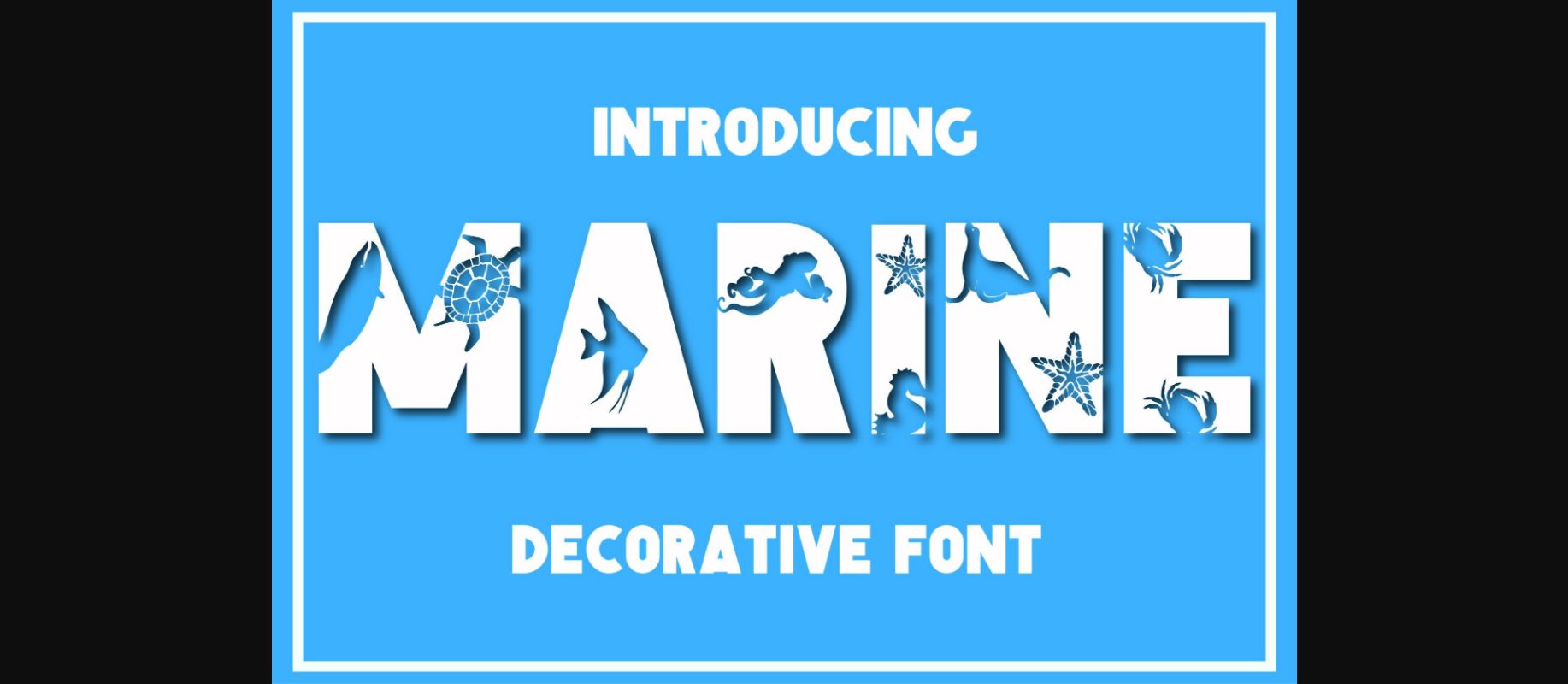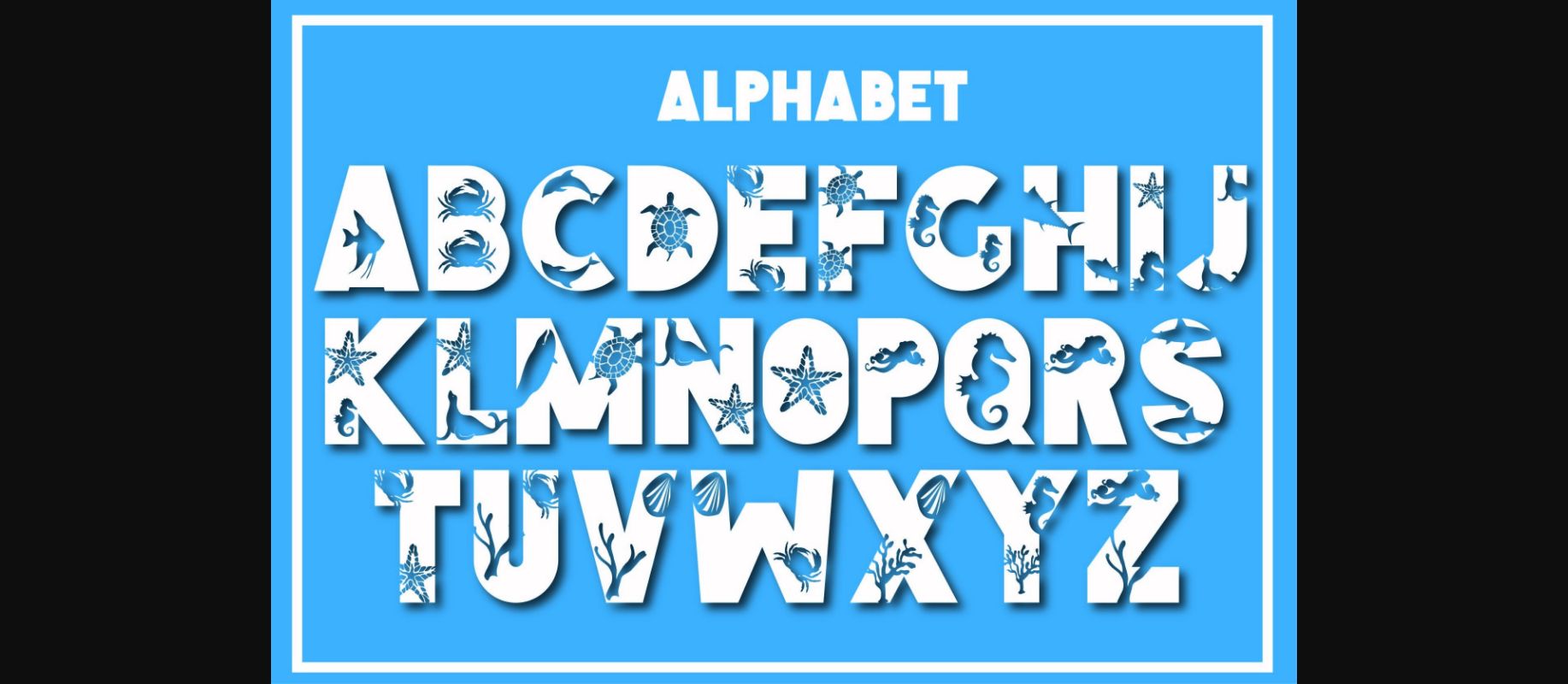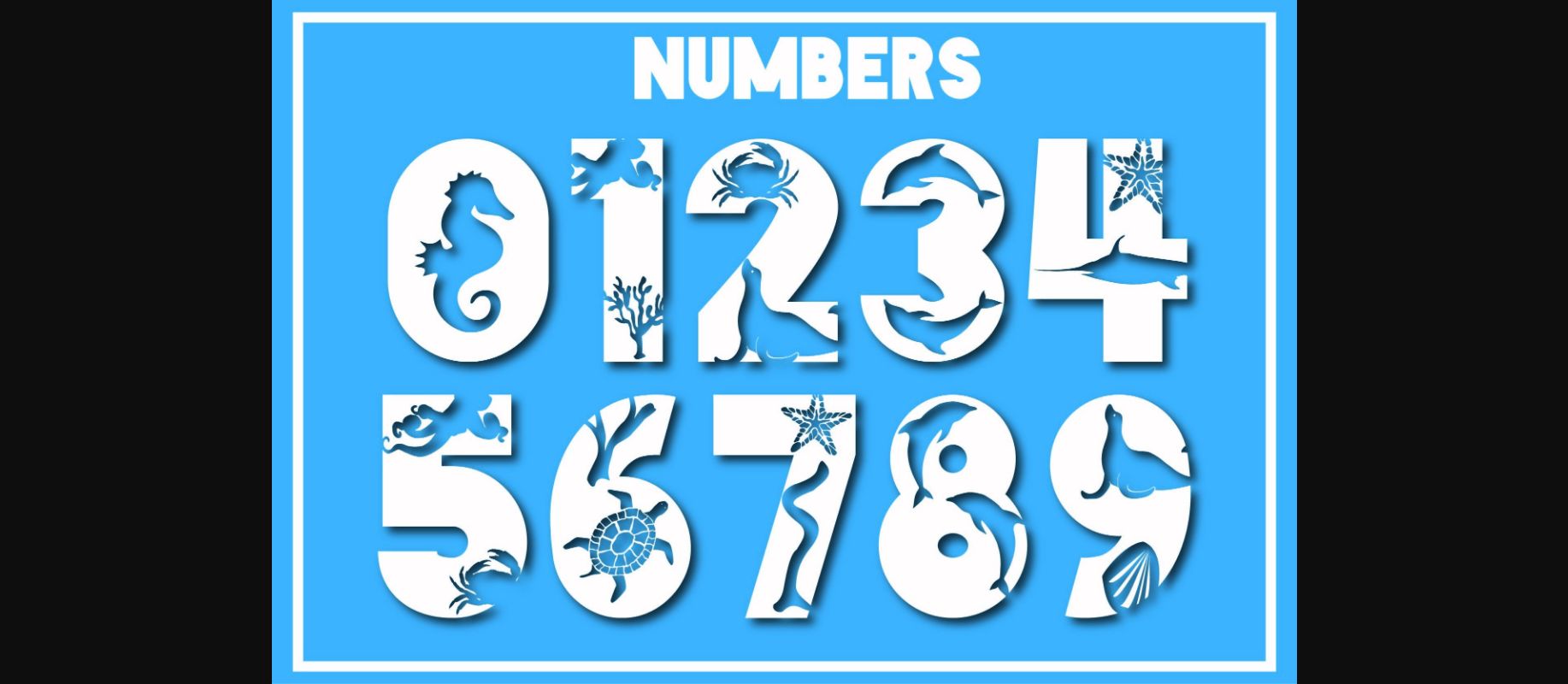
Marine Font
About Marine Font
Marine is a cute and adorable decorative font. Add it to each of your party invitations, swimming gathering, or pretty much any design that requires a touch of youth and joy.